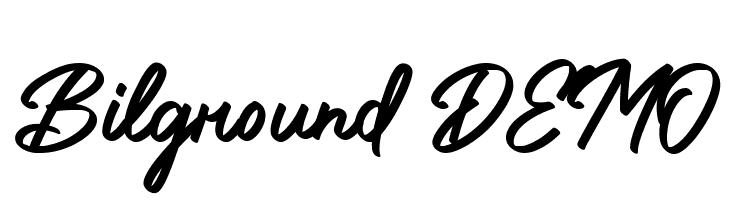
A playful, handwritten font with bold, rounded strokes and a casual style.
A bold, modern take on traditional blackletter with sharp, angular lines.
A playful, narrow font with consistent stroke width and rounded edges.
A bold, modern typeface with consistent stroke width and slightly condensed characters.
A hand-drawn font using sign language gestures for each character.
An elegant and flowing script font with intricate swirls and graceful curves.
A graceful, cursive script with elegant, elongated letterforms.
A playful handwritten font with a casual and dynamic style.
A bold, brushstroke-style font with dynamic, expressive lines.
A bold, angular font with a dynamic slant and strong geometric influence.
A bold, angular font with a modern, industrial aesthetic.
A bold, brush-style font with an energetic, hand-drawn appearance.
A bold, geometric font with sharp angles and a futuristic style.
A bold, angular, and futuristic italic font with a dynamic and edgy style.
A bold, angular font with a futuristic and aggressive style.
A flowing, cursive script font with elegant, interconnected letters.
An elegant, cursive script font with graceful loops and swirls.
A graceful and flowing script font with elegant, connected cursive letters.
A dynamic, brush-style script font with bold, slanted strokes.
A bold, handwritten font with a playful and energetic style.
A modern, cursive-inspired font with geometric elements, offering elegance and readability.
A graceful and elegant cursive font with flowing, connected letters.
A bold, angular font with a modern blackletter style.
A graceful and elegant script font with smooth, connected strokes and subtle flourishes.
A decorative collection of Istanbul's iconic landmarks as characters.
A bold, geometric font with a 3D effect and industrial style.
A bold, classic serif font with strong strokes and pronounced serifs.
A playful, handwritten font with a modern, clean style.
A dynamic handwritten font with fluid, continuous strokes.
A cursive, handwritten font with elegant, flowing strokes.
A playful, rounded font with a smooth, handwritten style.
A modern, geometric font with clean lines and balanced proportions.
A bold, energetic handwritten font with dynamic strokes and playful character.
A modern, clean sans-serif font with geometric shapes and uniform stroke width.
A playful and artistic font with whimsical uppercase and straightforward lowercase letters.